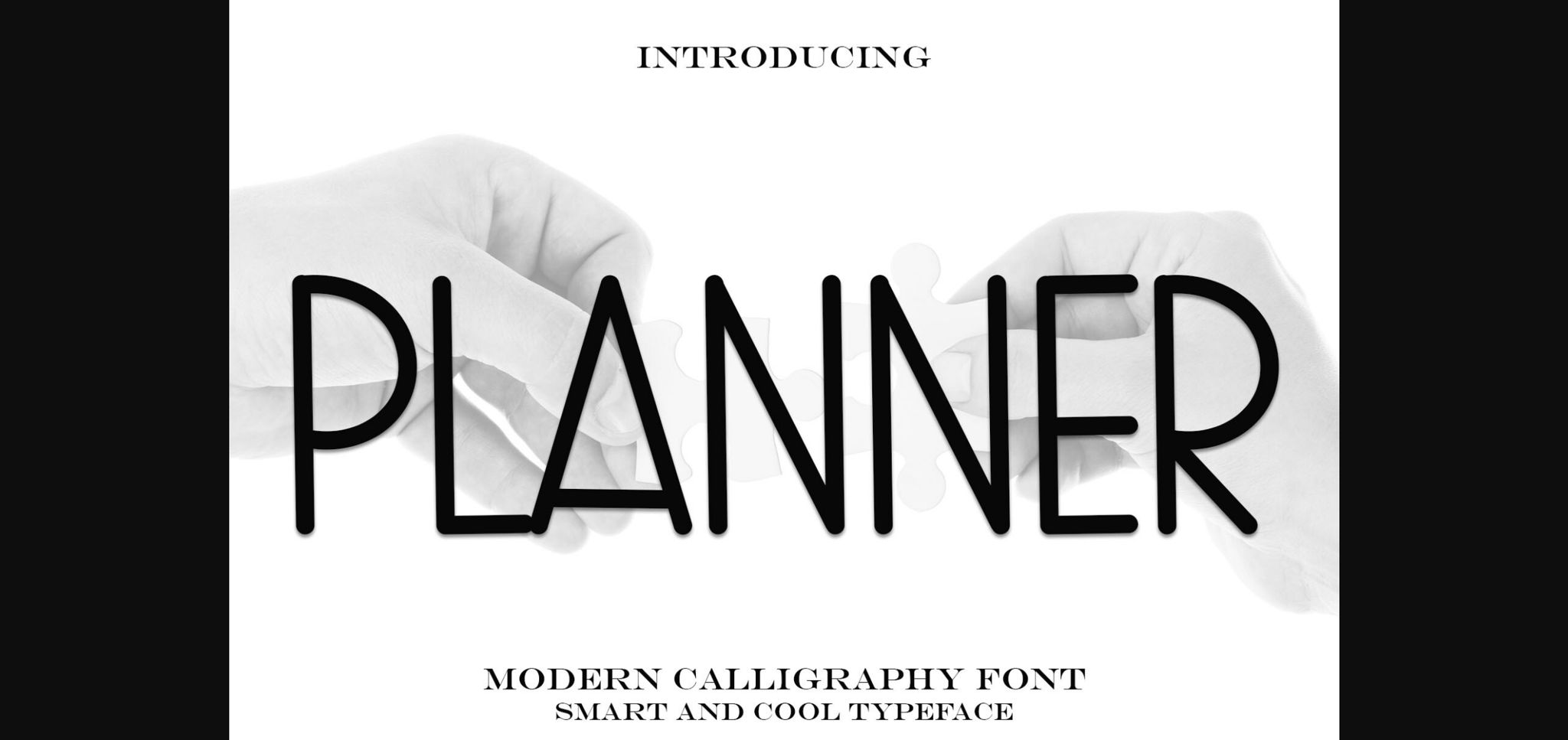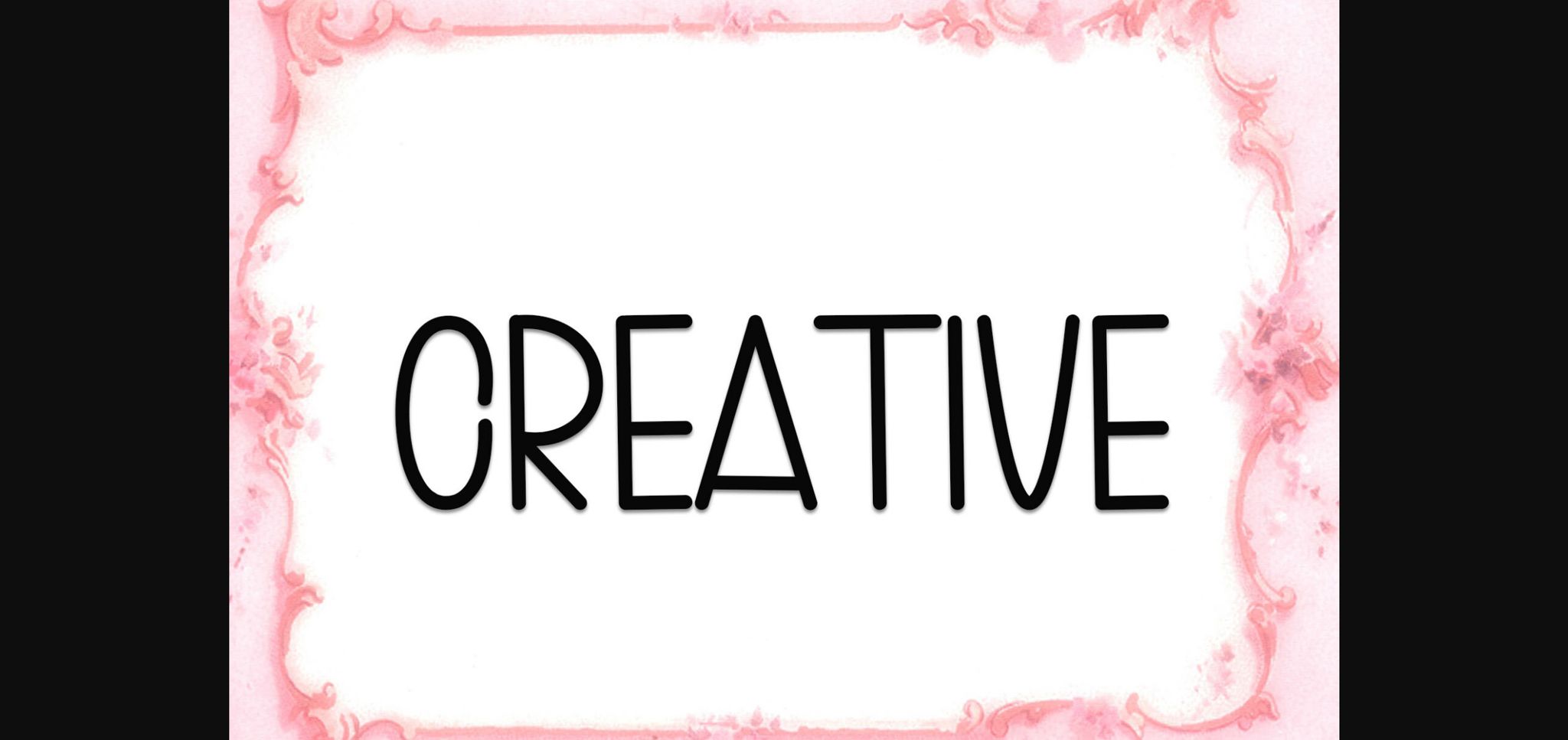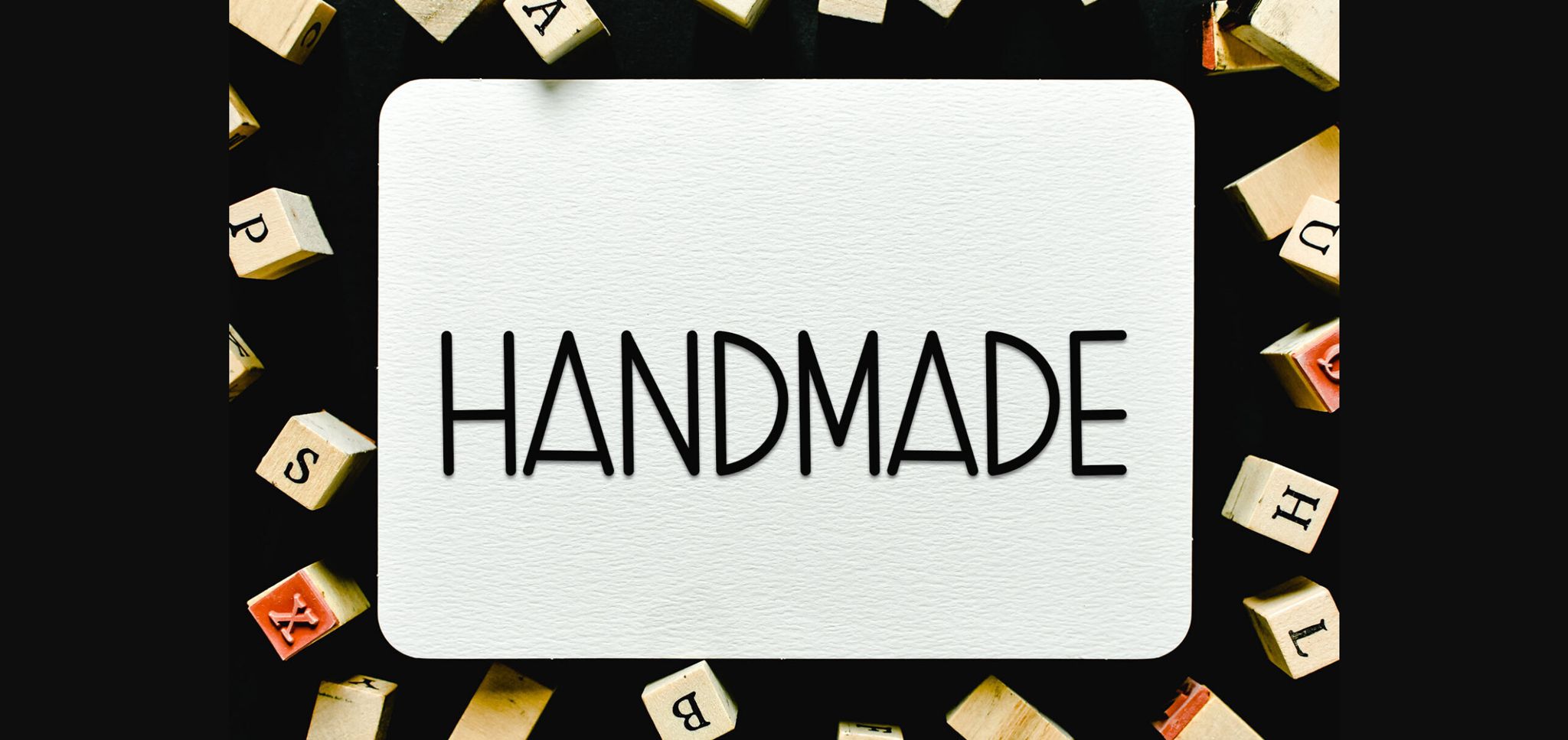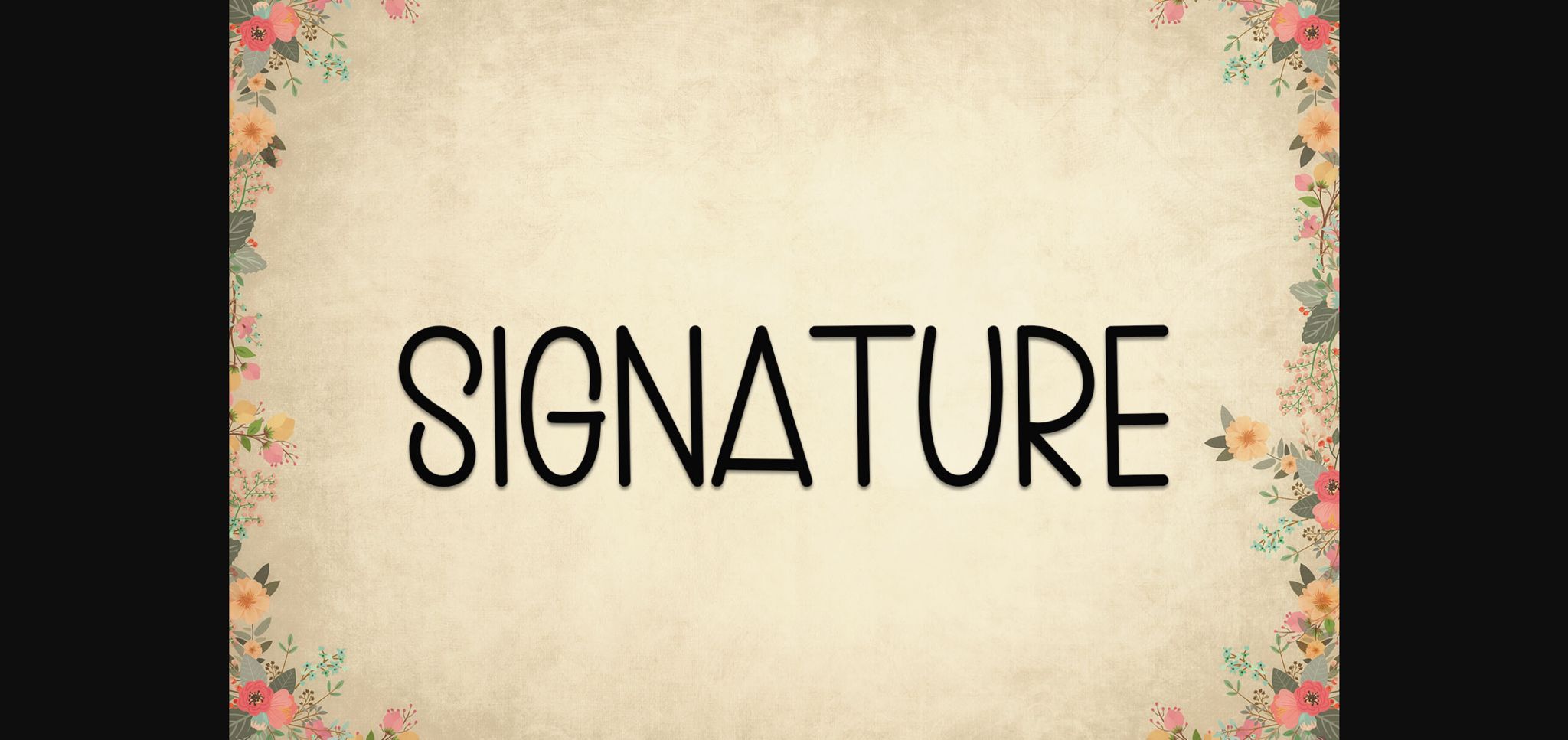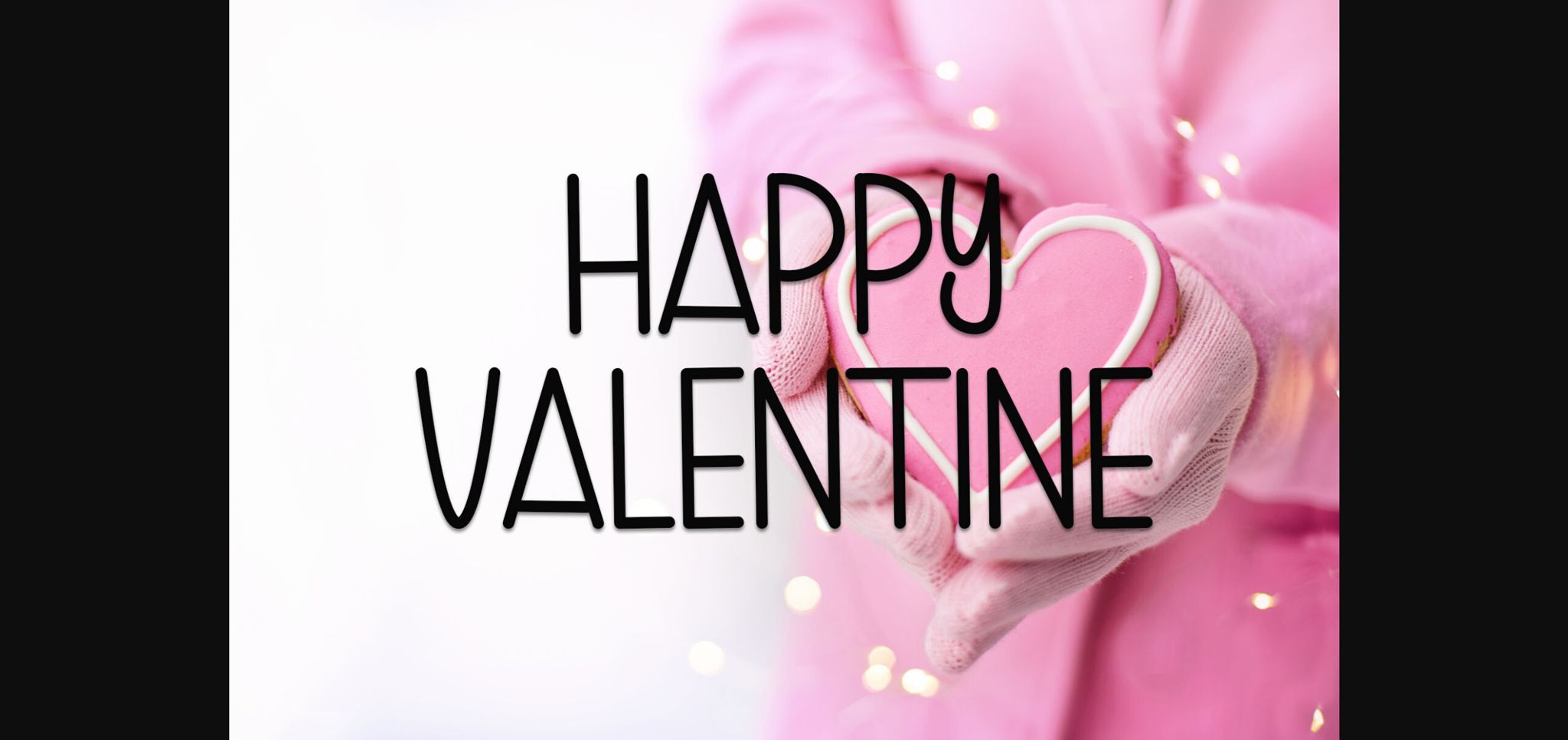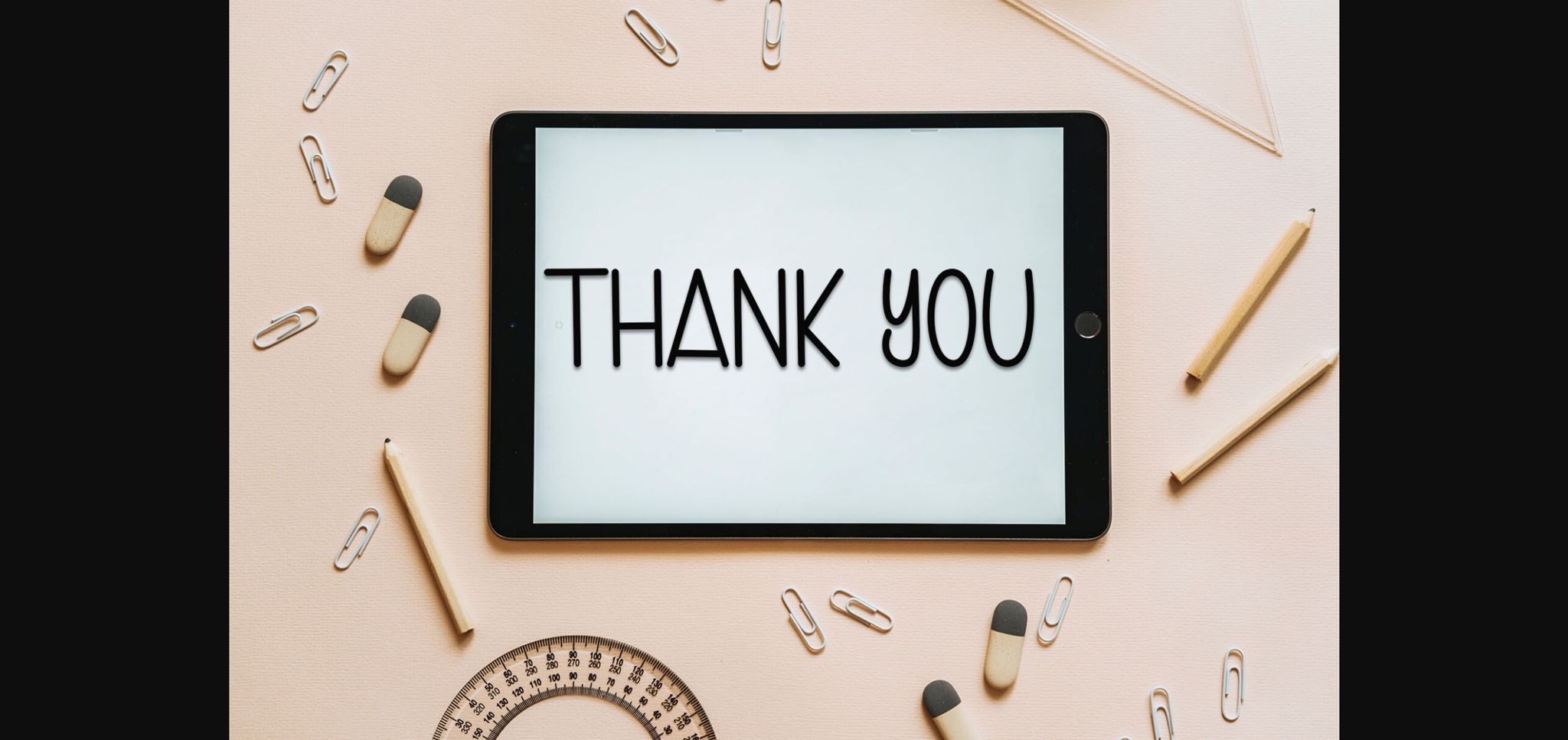
Planner Font
About Planner Font
Planner is a neat and beautiful sans-serif font described by an elegant touch, perfect for your favorite projects.
Fall in love with its incredibly distinct and timeless style, and use it to create spectacular designs!